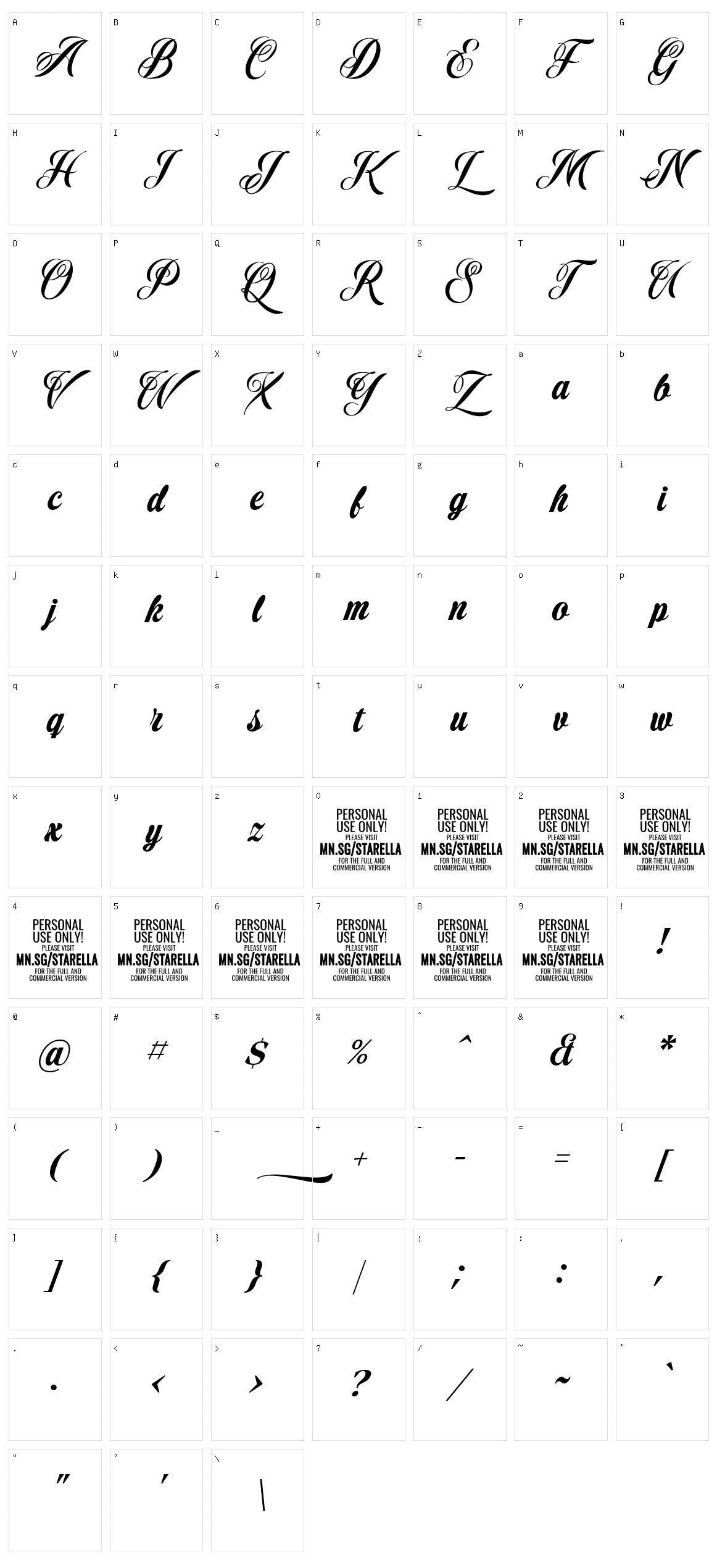
Starella Script is a decorative typeface created by Måns Grebäck.
It is bold, beautiful and works perfectly for majestic logotypes and graphics.
Starella Script also includes alternate and swash letters, to give extra flexibility.
Use underscore to create a swash, example: S_tarella
The typeface has support for all European, Latin based languages.